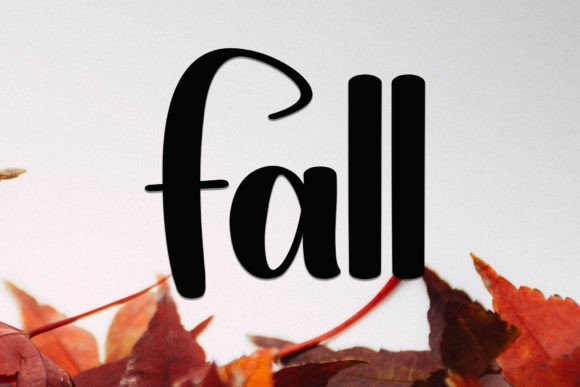
Introducing Fall Font, the Best Font for Latin Script that will instantly captivate and enchant you. Created by the talented putrasyahreza00, this script font is a true masterpiece that will elevate your designs to new heights.
With its neat and beautiful handwritten style, Fall Font adds an elegant touch to any project. Whether you're designing a logo, creating a stunning invitation, or crafting a memorable social media post, this font is perfect for all your creative endeavors.
Fall Font exudes an aura of sophistication and class, making it ideal for those who appreciate timeless beauty. Its incredibly distinct and unique style will make your designs stand out from the crowd, leaving a lasting impression on anyone who sees them.
But Fall Font is not just visually appealing; it also offers exceptional functionality. Its carefully crafted characters ensure legibility, even at smaller sizes. This means that your message will always be clear and easy to read, no matter the context.
This font is specifically tailored for Latin script, making it ideal for users who need a font that perfectly complements their text. Whether you're designing a website, a magazine layout, or a branding project, Fall Font will effortlessly enhance the visual appeal of your content.
What sets Fall Font apart from other script fonts is its versatility. It seamlessly adapts to various design styles, allowing you to explore endless creative possibilities. From elegant and luxurious to modern and edgy, this font can effortlessly transform to suit your vision.